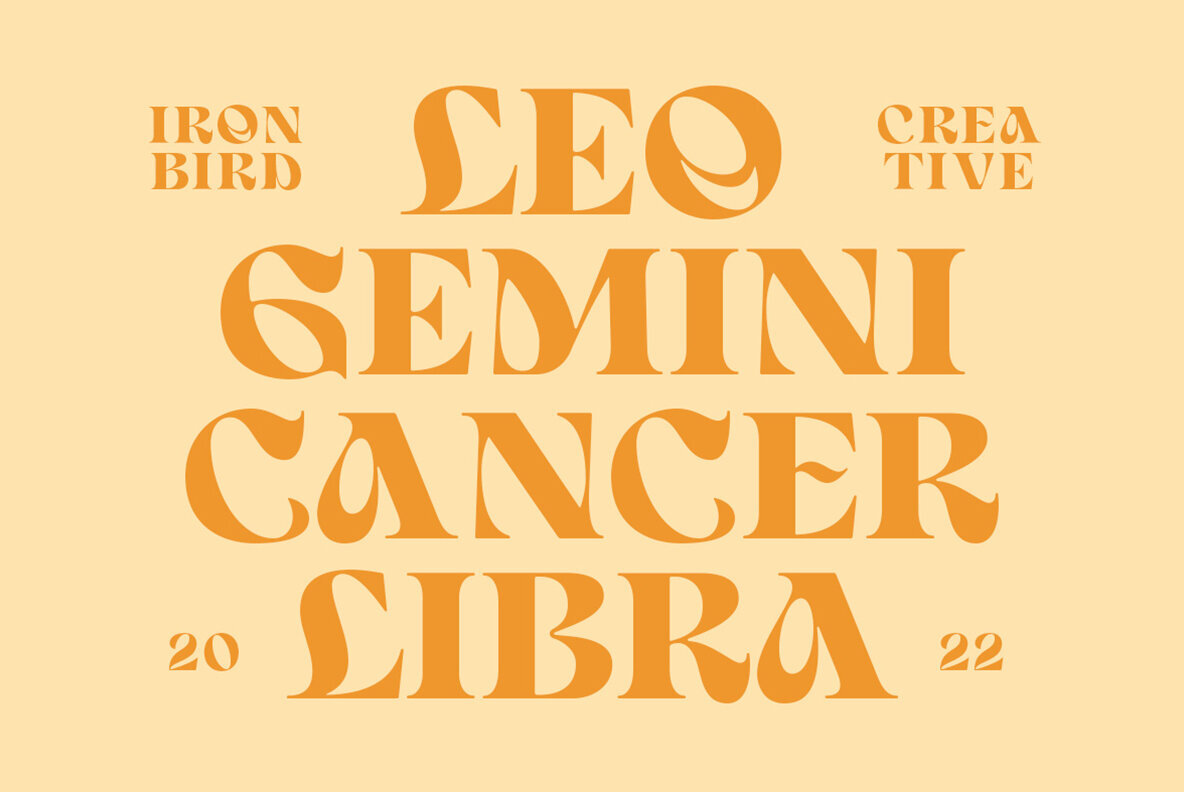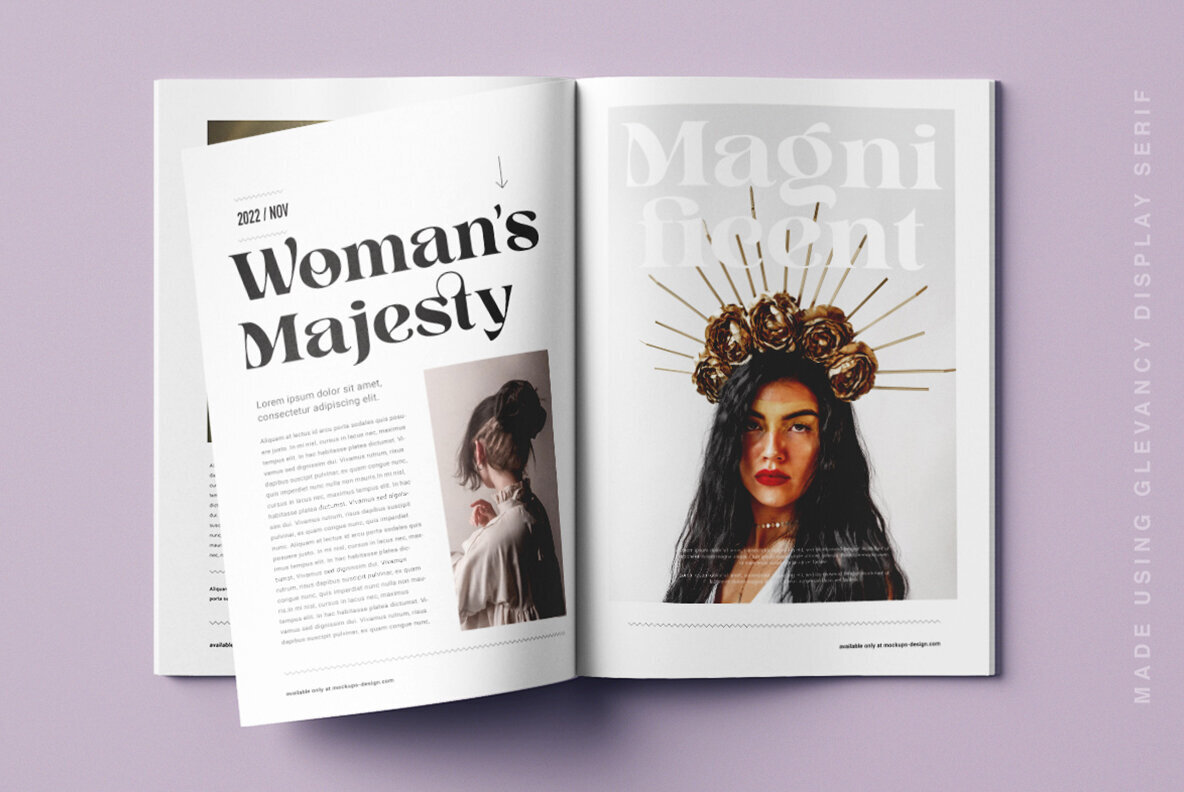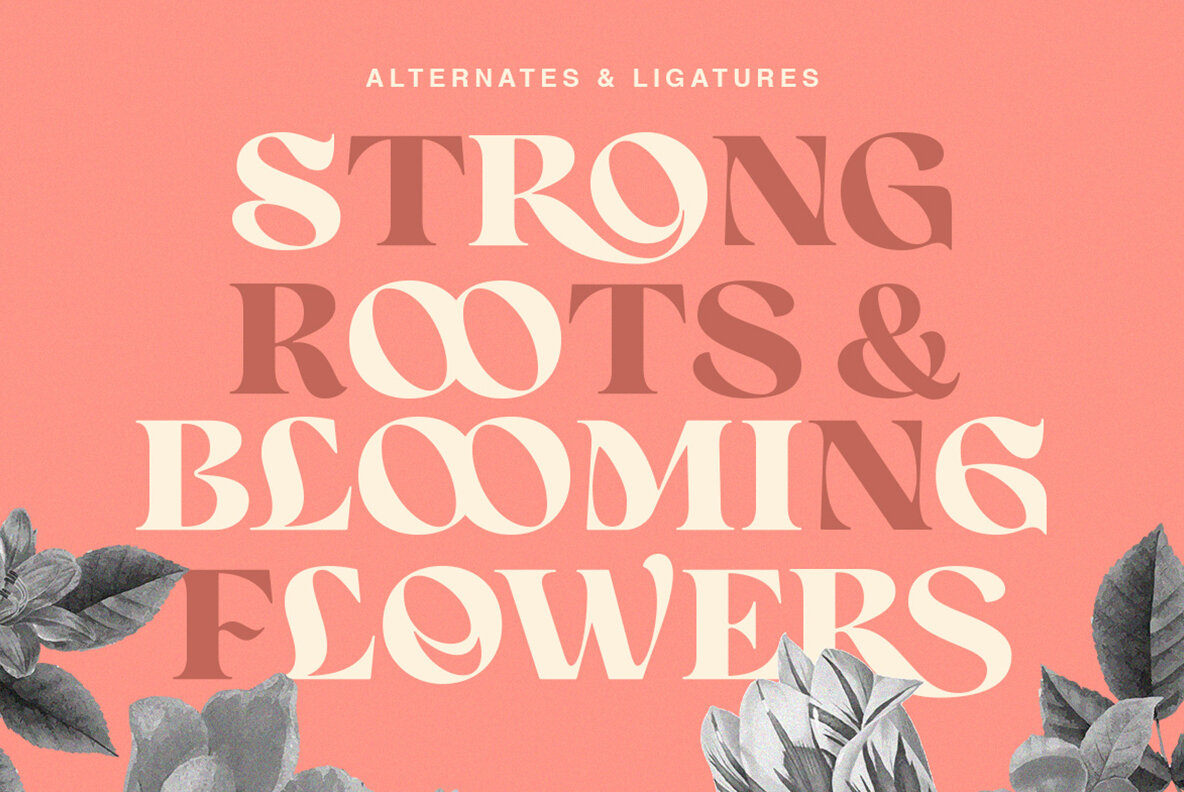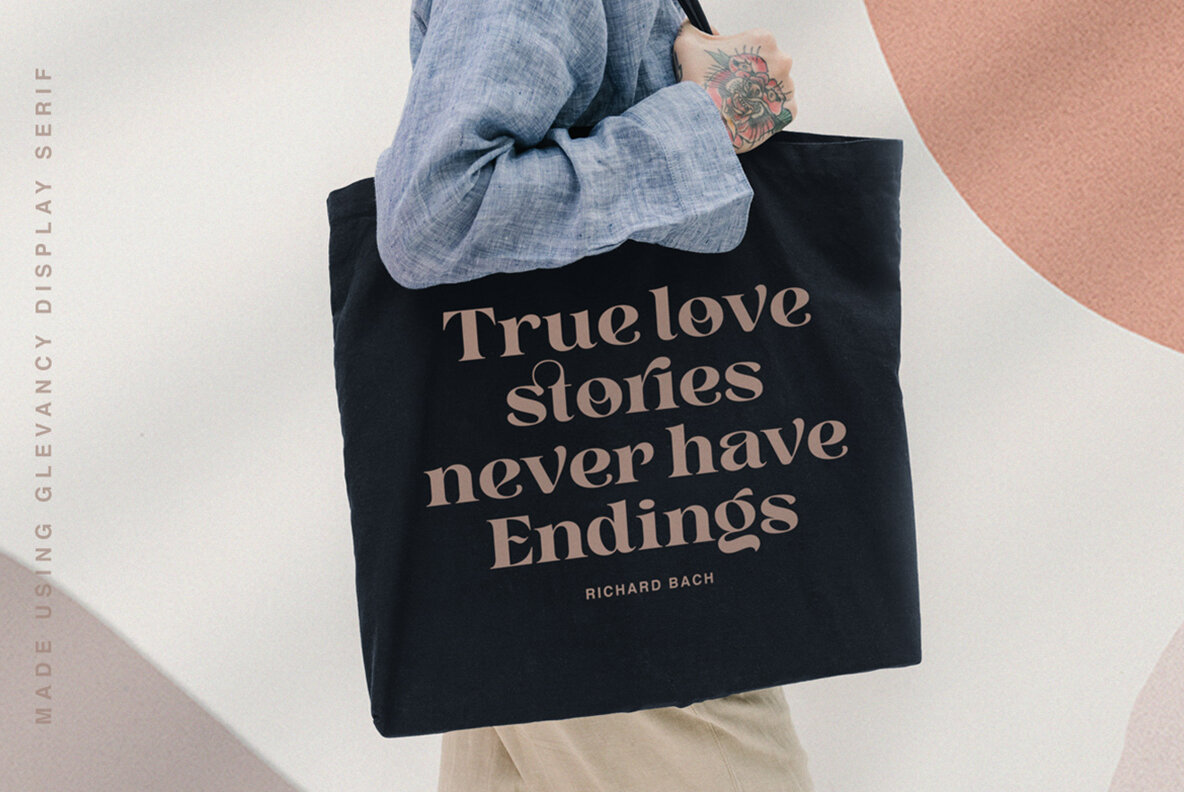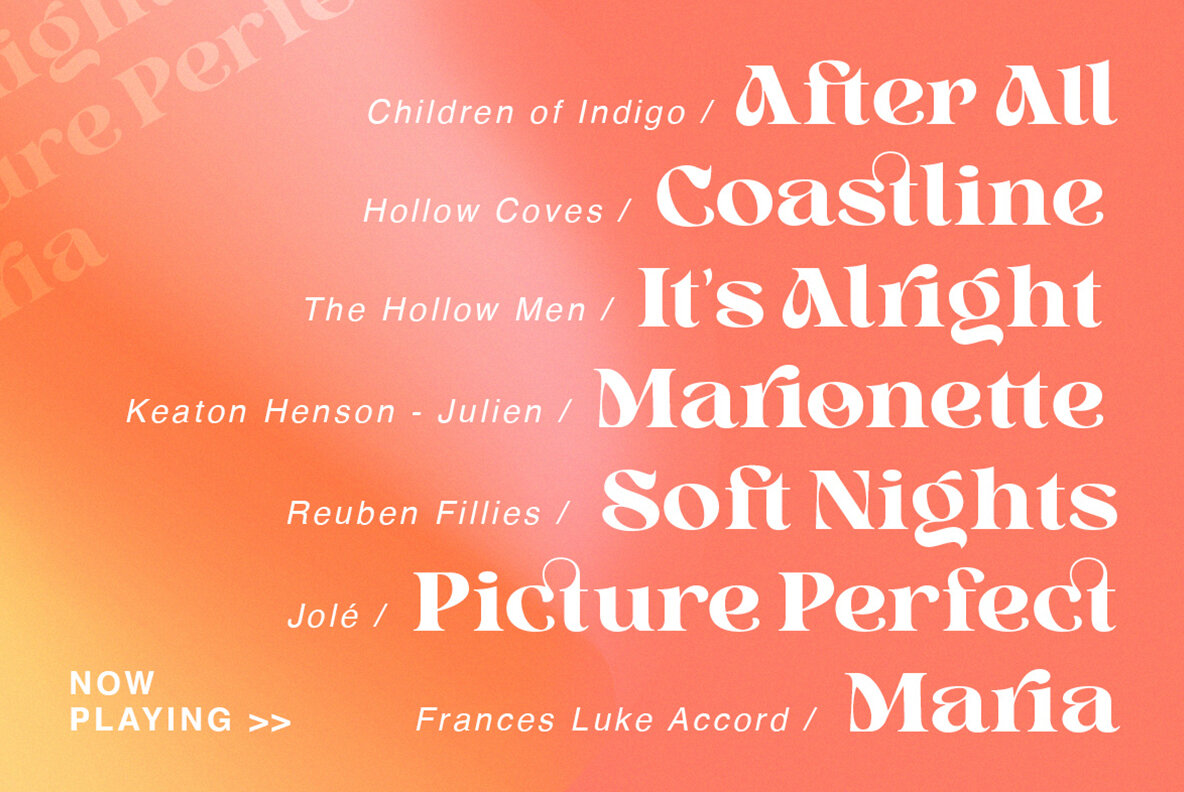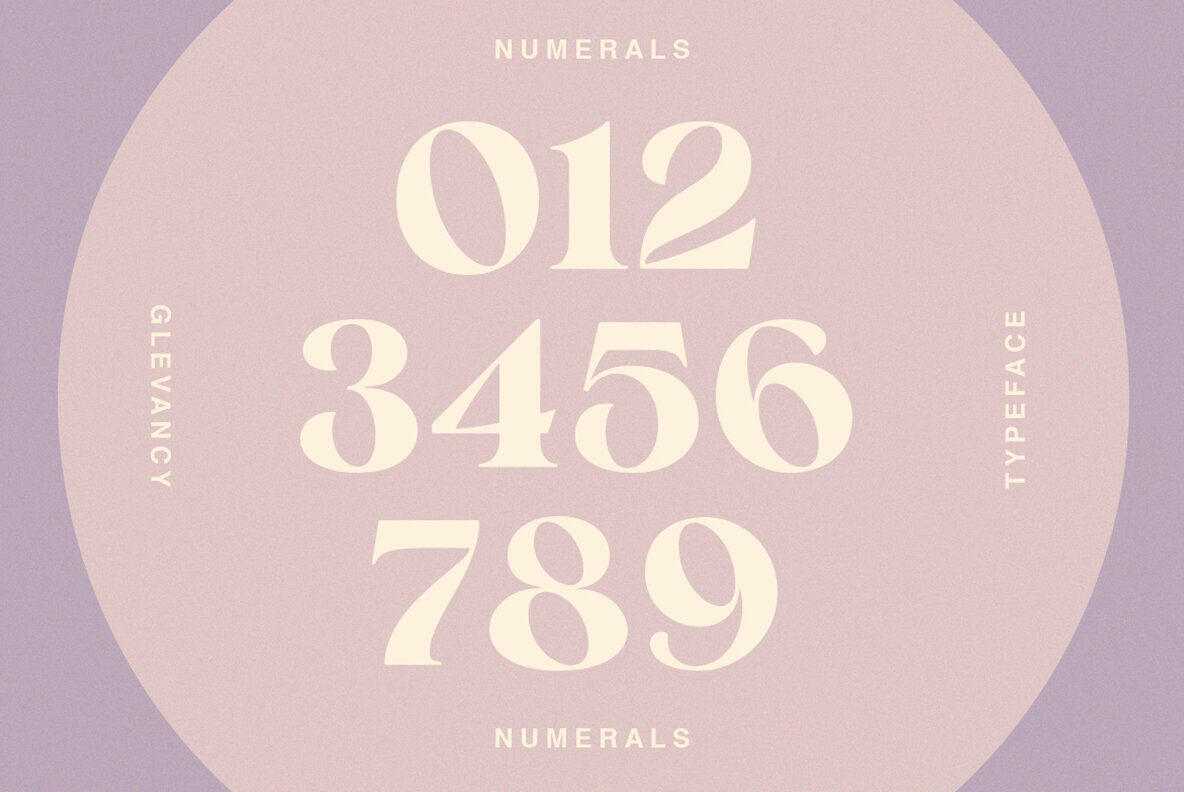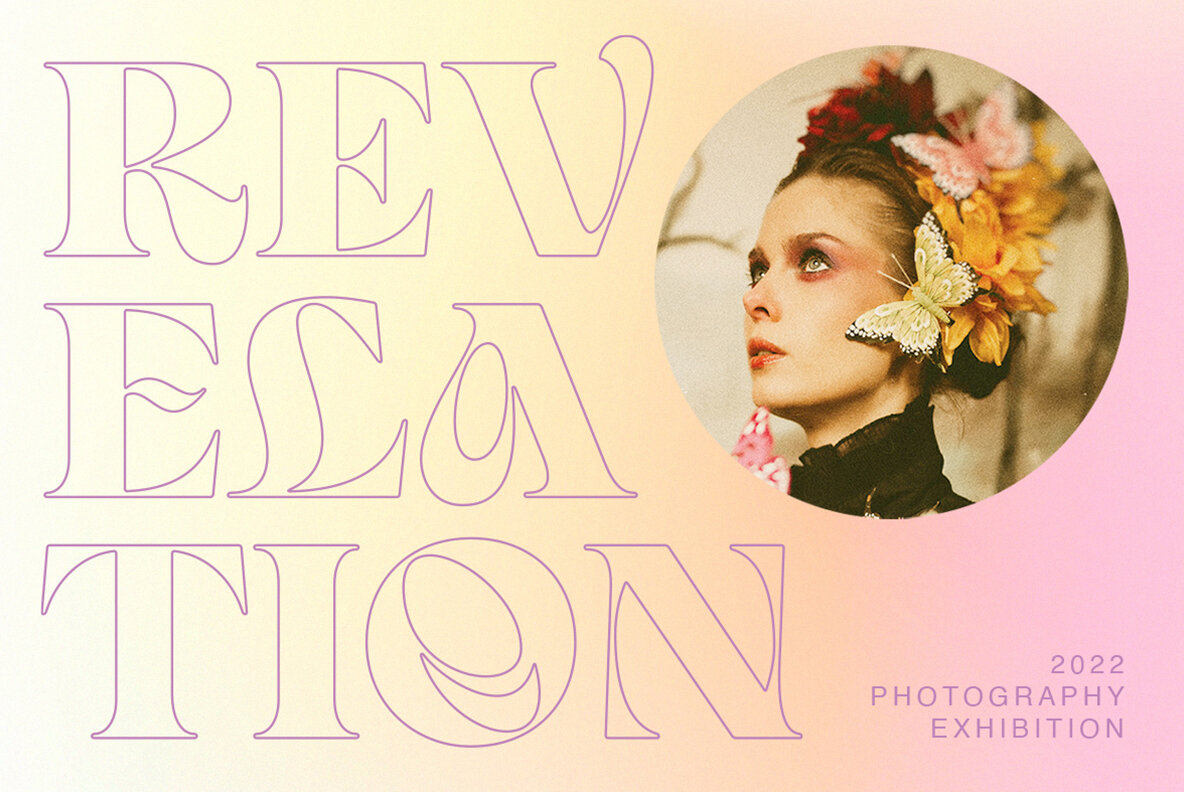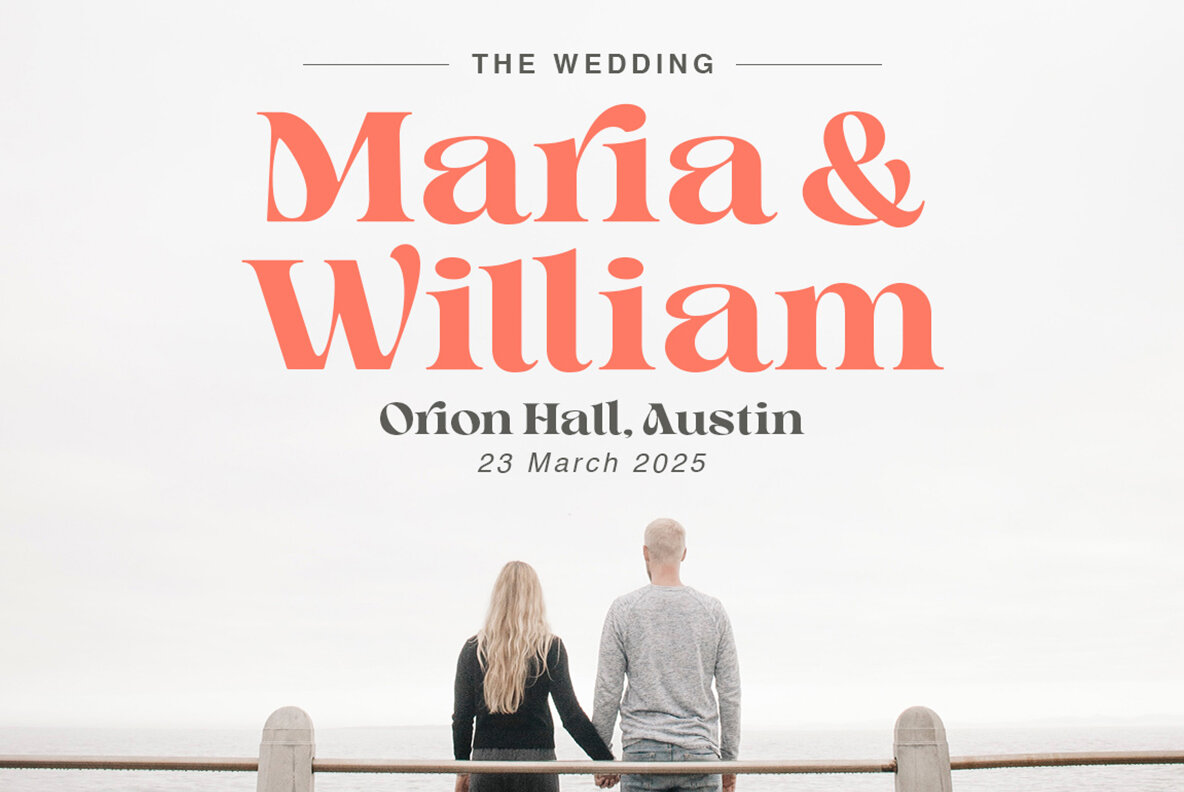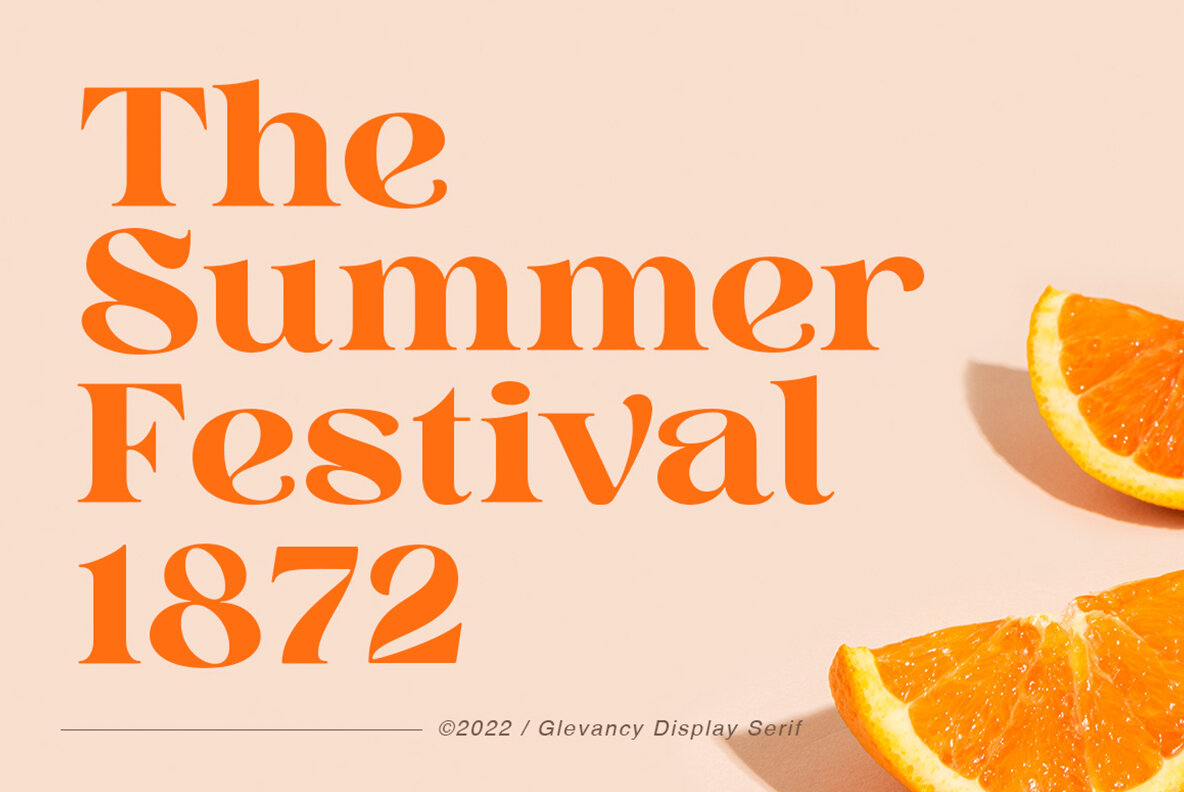
Glevancy Font
Glevancy Regular
Glevancy stands out as a display and bold serif font enriched with high contrast elements, offering an elegant yet versatile choice for varied design needs. With subtle vintage inspirations, Glevancy injects sophistication into any presentation, enhancing its visual appeal with a touch of timeless chic. This typeface seamlessly adapts to diverse applications, whether it be logos, posters, events, or social media posts. Glevancy's support for multiple languages and PUA encoding further enhances its functionality for global audiences.Glevancy: Stylish Display with Vintage Charm